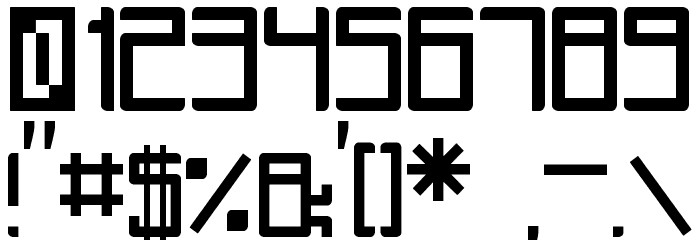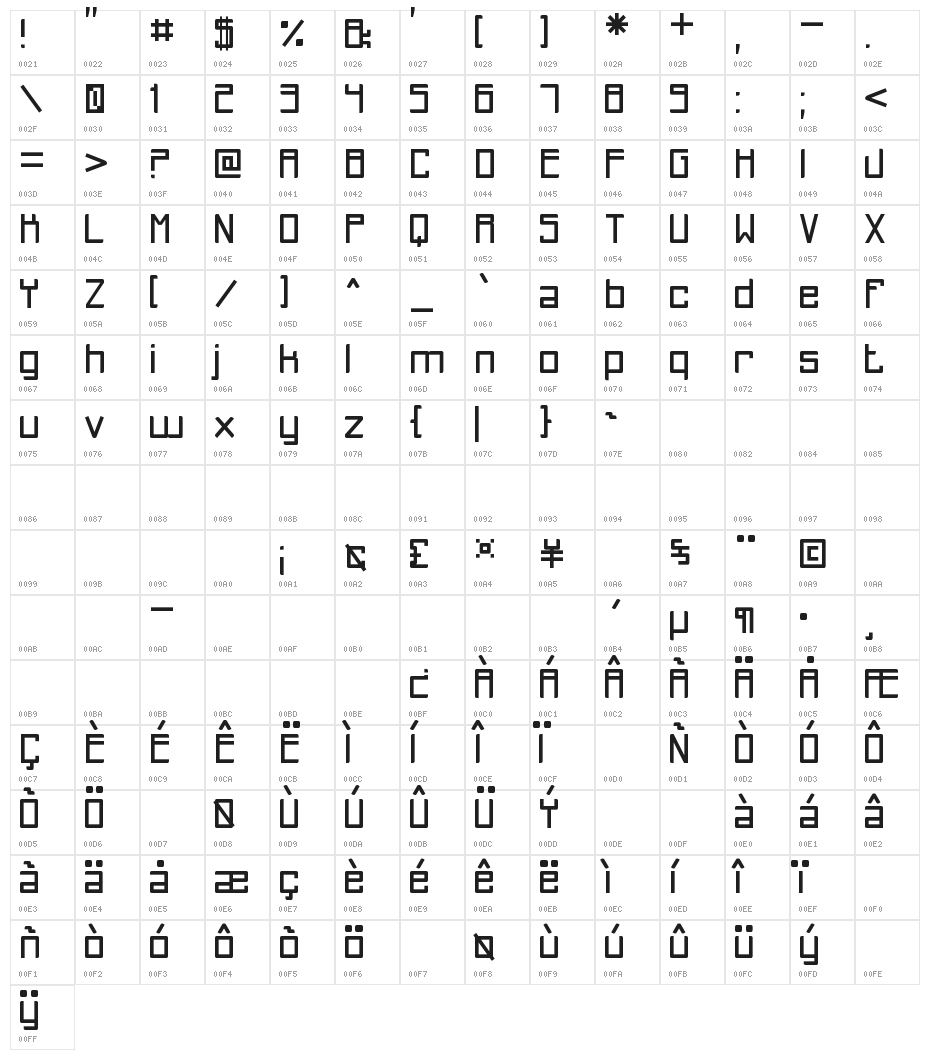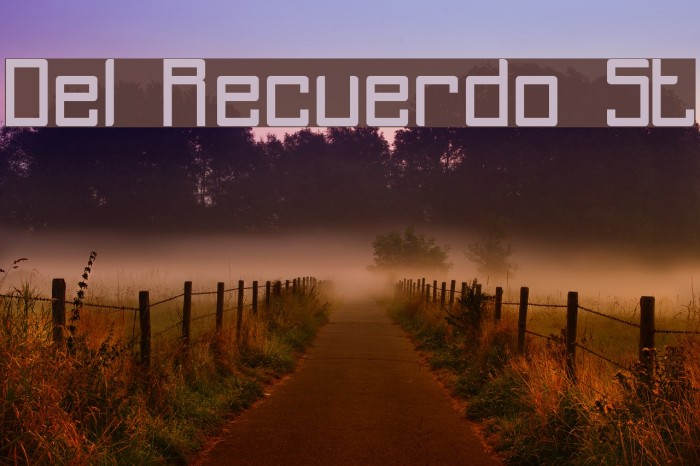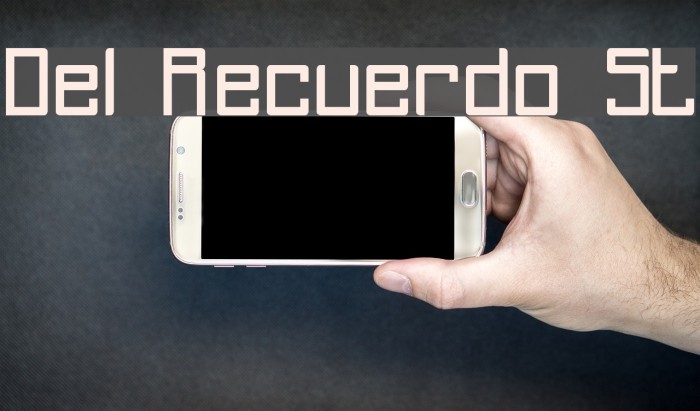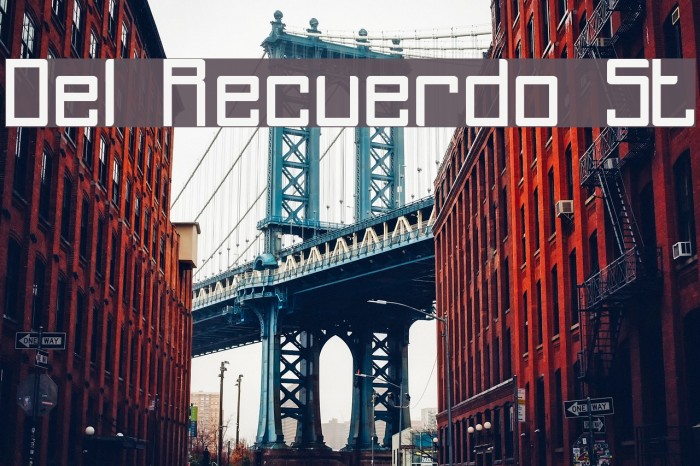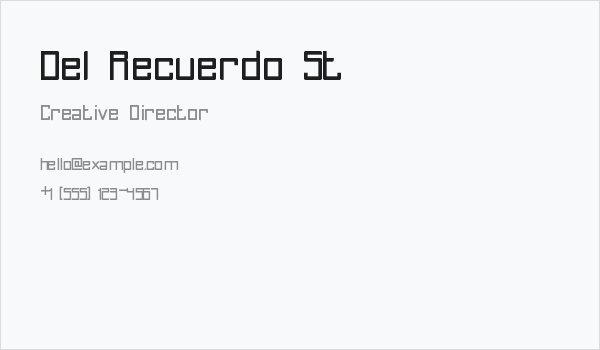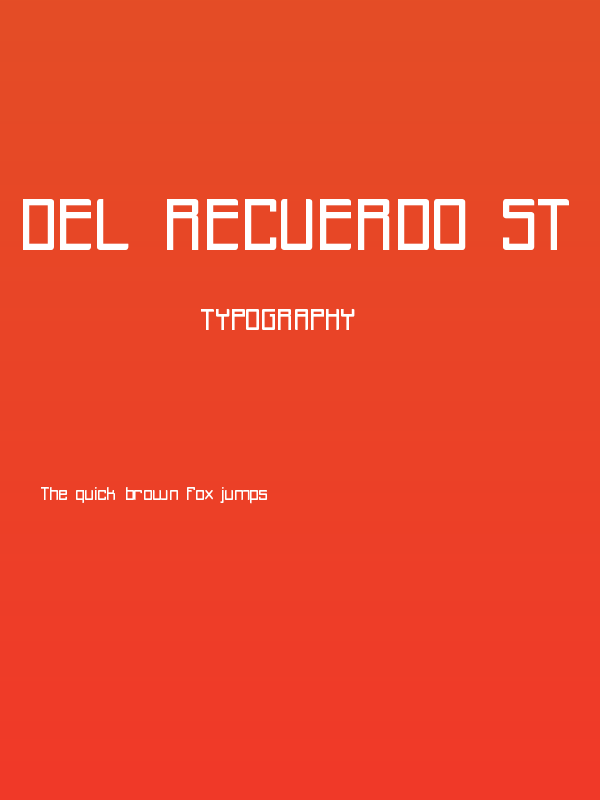
Del Recuerdo St Font
Del Recuerdo St Description
This font features a geometric and modern design with a strong emphasis on clean lines and angular shapes. The uppercase letters are bold and uniform, creating a sense of stability and strength. The lowercase letters maintain the same geometric style, offering a cohesive look across different text sizes. Numbers and special characters are designed with the same attention to detail, ensuring consistency throughout. The font's structure is slightly condensed, which allows for efficient use of space without sacrificing readability. Its unique style makes it suitable for a variety of design projects that require a contemporary and tech-inspired aesthetic.
| Use Case | Headlines, Logos, Digital Interfaces |
| Proposed Projects | Ideal for tech branding, modern posters, digital interfaces, and futuristic designs. |